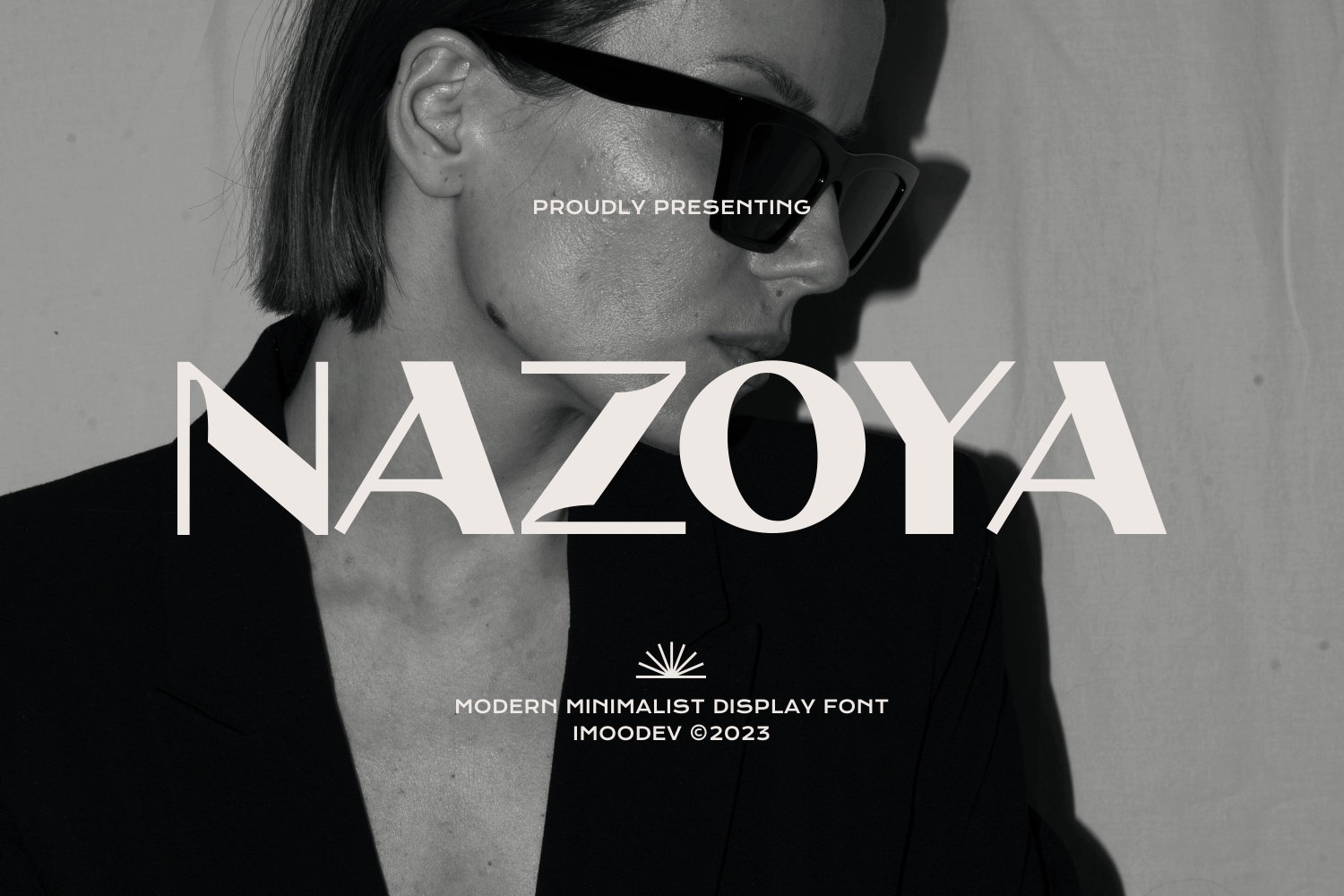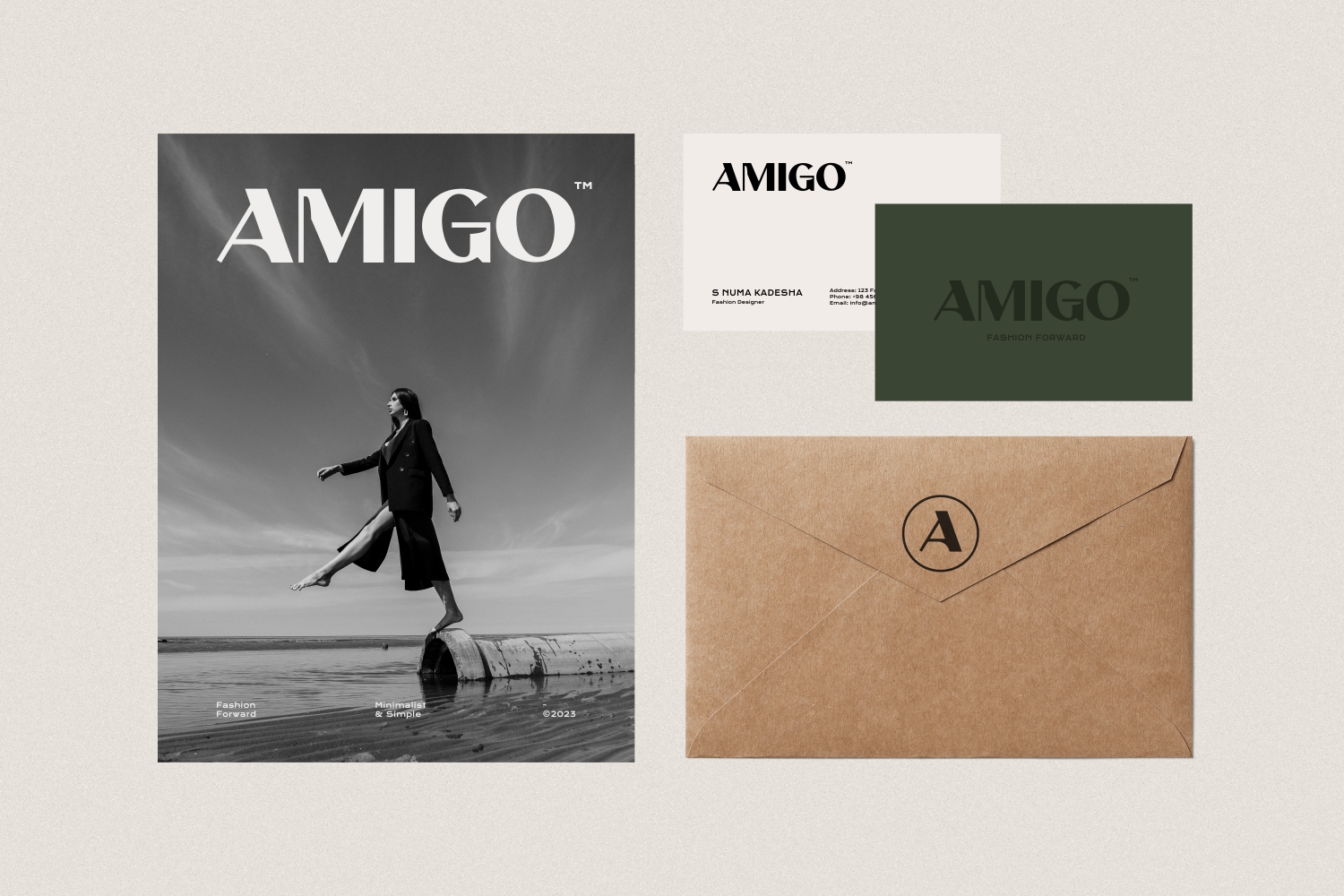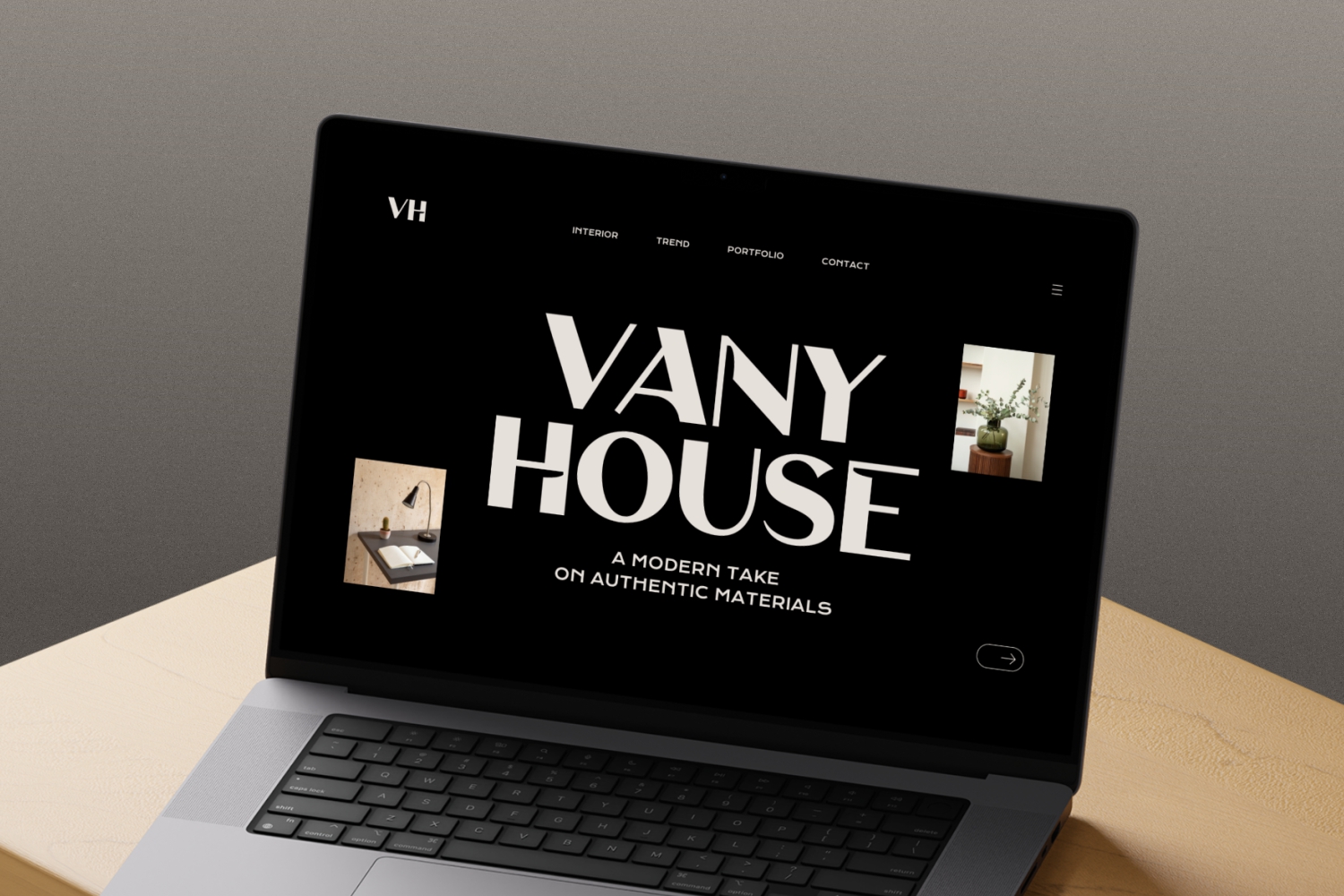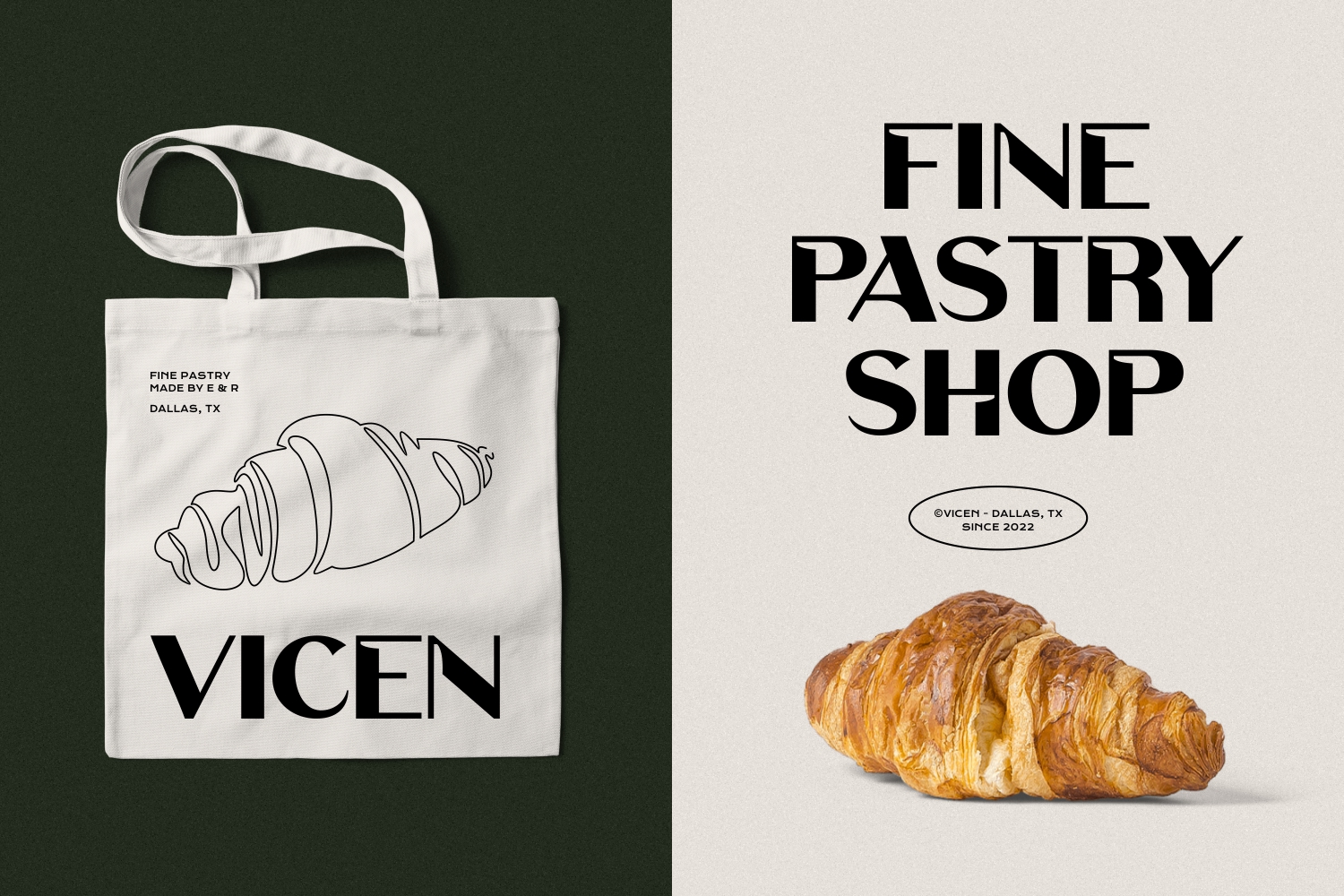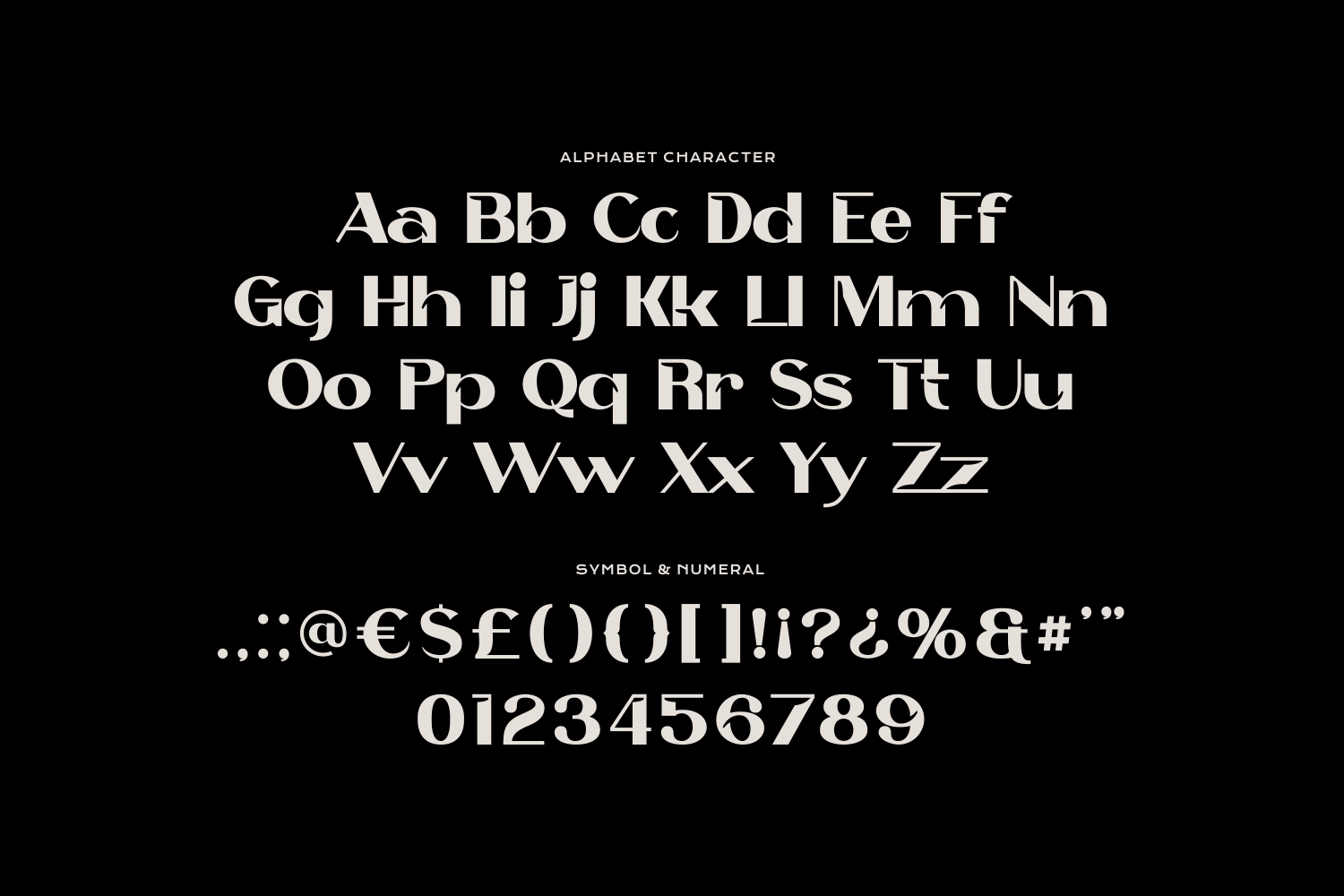
Nazoya is a modern minimalist display font that blends sleek geometric forms with refined elegance. Its bold yet clean letterforms are designed to stand out, making it perfect for fashion branding, luxury packaging, editorial titles, and high-end product design. The font’s sharp angles and balanced proportions create a sophisticated visual identity that speaks of style and confidence.
With its versatile aesthetic, Nazoya works beautifully across both print and digital platforms. Whether you’re designing for upscale fashion labels, contemporary websites, or stylish marketing campaigns, this font delivers a striking presence. Its unique cut details and minimalistic curves make every composition feel exclusive, timeless, and impactful.